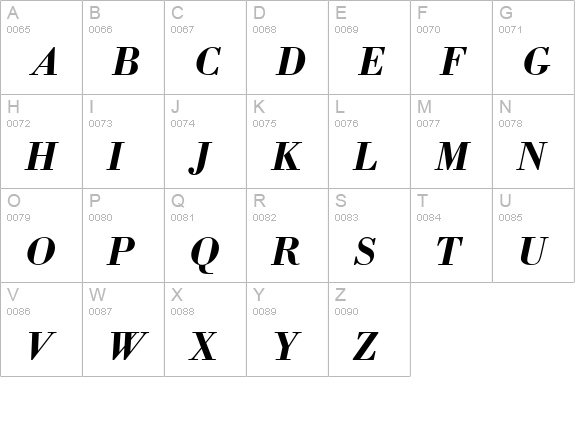
Bodoni BE Medium Italic Oldstyle Figures Font Details
Bodoni BE Medium Italic Oldstyle Figures is a balanced, medium-weight, italic variant in the Bodoni typeface family \xE2\x80\x94 well suited to sub-headlines, navigation, and balanced editorial work.
Bodoni BE Medium Italic Oldstyle Figures font is a timeless and elegant typeface that exudes sophistication and class. With its sleek and refined design, this font is perfect for adding a touch of luxury to any project. The oldstyle figures add a vintage charm to the overall aesthetic, making it a versatile choice for various design applications. The graceful slant of the italic style adds a sense of movement and elegance to the characters, making them stand out on the page. The medium weight strikes the perfect balance between boldness and delicacy, ensuring readability and visual impact. Best of all, Bodoni BE Medium Italic Oldstyle Figures font is available for free download at FontsMarket.com. Whether you're working on a print design, digital project, or branding materials, this font is sure to elevate your work and leave a lasting impression. Download it today and add a touch of sophistication to your designs.